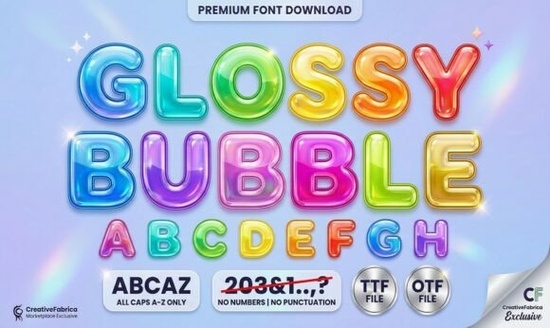
When you are working on projects that need to feel happy and inviting, choosing the right typography makes all the difference. The Glossy Bubble Font is designed specifically to bring that sense of joy to your work. It features plump, rounded letters with thick outlines and built-in highlight marks that create a shiny, 3D balloon effect. This hand-drawn style is not just cute; it is functional for various creative tasks where readability and personality are key. Whether you are designing for children or creating lighthearted marketing materials, this typeface helps your work stand out without looking messy.
What makes this font suitable for children's designs?
Kids respond well to shapes that feel friendly and approachable. Sharp edges and serious serif fonts often feel too formal for younger audiences. A bubbly typeface mimics the toys and drawings children love. The rounded edges of this font feel safe and fun, which is why it works so well for educational materials, birthday party invitations, and nursery decor. When you pair this style with bright colors, it captures attention immediately. If you are looking for similar options that cater to a younger demographic, you might also explore styles like Kidpop, which shares that same energetic vibe suitable for playgrounds and classrooms.
The built-in highlights are a major time-saver. Normally, creating a 3D effect requires multiple layers in your design software. With this font, the shine is already part of the character. This means you can spend less time editing and more time focusing on the layout. It is particularly useful for crafters who use cutting machines, as the thick outlines ensure that intricate details do not get lost when cutting vinyl or cardstock.
Can you use bubbly fonts for professional branding?
Many people assume display fonts are only for hobbies, but they have a place in small business branding too. If you run a bakery, a toy store, or a party planning service, your logo needs to communicate warmth. A glossy, rounded font tells customers that your business is friendly and accessible. It works beautifully on packaging, stickers, and social media graphics. However, balance is important. You should pair it with a simpler sans-serif font for body text to ensure readability on menus or product descriptions.
For businesses that want a slightly more organic feel while keeping the fun factor, The Pickles House offers a hand-drawn alternative that feels personal and unique. Using these types of fonts helps humanize your brand, making it feel less corporate and more like a community favorite. Just remember to keep the usage consistent across all your platforms to build recognition.
How do seasonal themes influence font choices?
Seasonality plays a huge role in design, especially for print-on-demand sellers. During summer, designs tend to be brighter and more relaxed. A font that looks like a balloon fits perfectly with beach themes, ice cream shops, and vacation apparel. The cheerful nature of the letters complements pastel palettes and vibrant sunshine yellows. It evokes a feeling of leisure and play, which is exactly what customers want when buying summer gear.
If you are creating a collection specifically for warm weather projects, Summer Forever is another great option to consider for your toolkit. Having a variety of seasonal fonts allows you to rotate your designs throughout the year without losing your brand's voice. You can keep the same playful tone while adapting the specific style to match holidays or weather changes.
Where can you find similar playful typography styles?
Expanding your library with similar fonts gives you more flexibility. Sometimes you need a bubble font that is slightly taller, or one with a different kind of outline. Having alternatives ensures you never feel stuck with a design that isn't quite right. It also helps you avoid overusing one specific font across all your projects, which keeps your portfolio fresh.
For designs that need to emphasize happiness and positivity, Beautiful Smile provides a wonderful variation on the cheerful theme. If you are focused specifically on that inflated, balloon-like look, Super Bubble is another strong contender to check out. Mixing these styles allows you to create hierarchies in your designs, using one font for headlines and another for subheaders while maintaining a cohesive look.
Design Checklist for Using Display Fonts
Before you finalize your project, run through this quick list to ensure your typography is working hard for you:
- Check Legibility: View your design at 100% zoom to ensure the thick outlines do not blur together at smaller sizes.
- Contrast Matters: Make sure the font color stands out against the background, especially with the built-in highlights.
- Pair Wisely: Use a simple font for long paragraphs to balance the playful display font.
- Test on Mockups: Always preview your text on a t-shirt or mug mockup to see how the 3D effect translates to physical products.
- License Check: Verify if your license allows for commercial use if you are selling items with the font.
Starting with a strong foundation like this bubbly typeface sets the tone for the entire project. By understanding where and how to use it, you can create designs that feel professional yet full of personality. Take the time to experiment with different color combinations to see how the glossy effect reacts. With the right approach, your projects will not only look good but also connect emotionally with your audience.